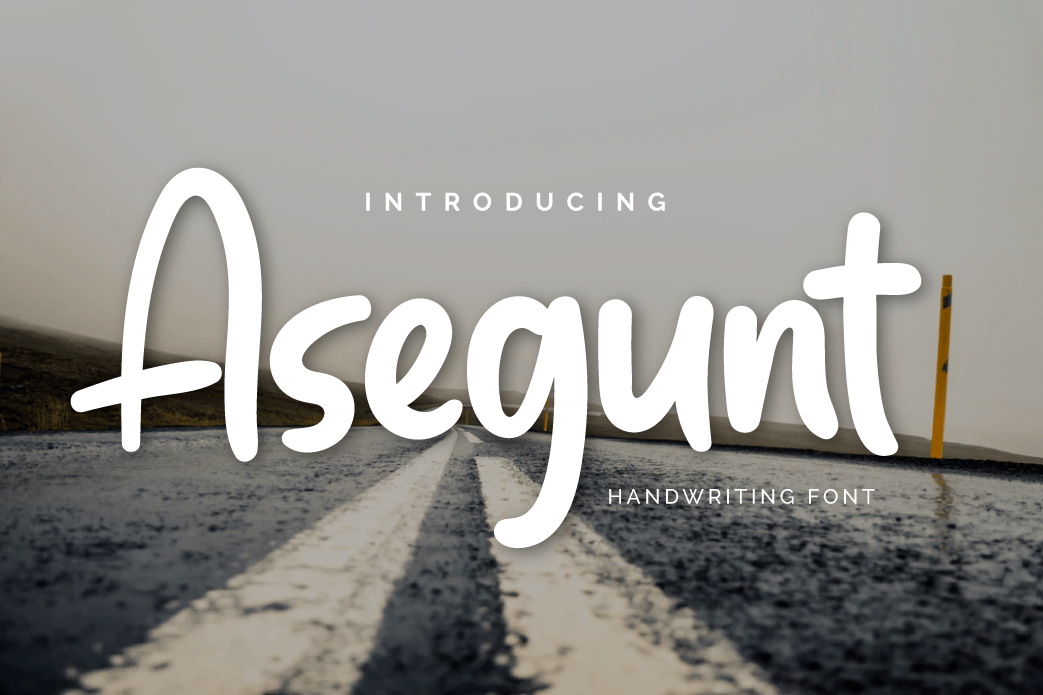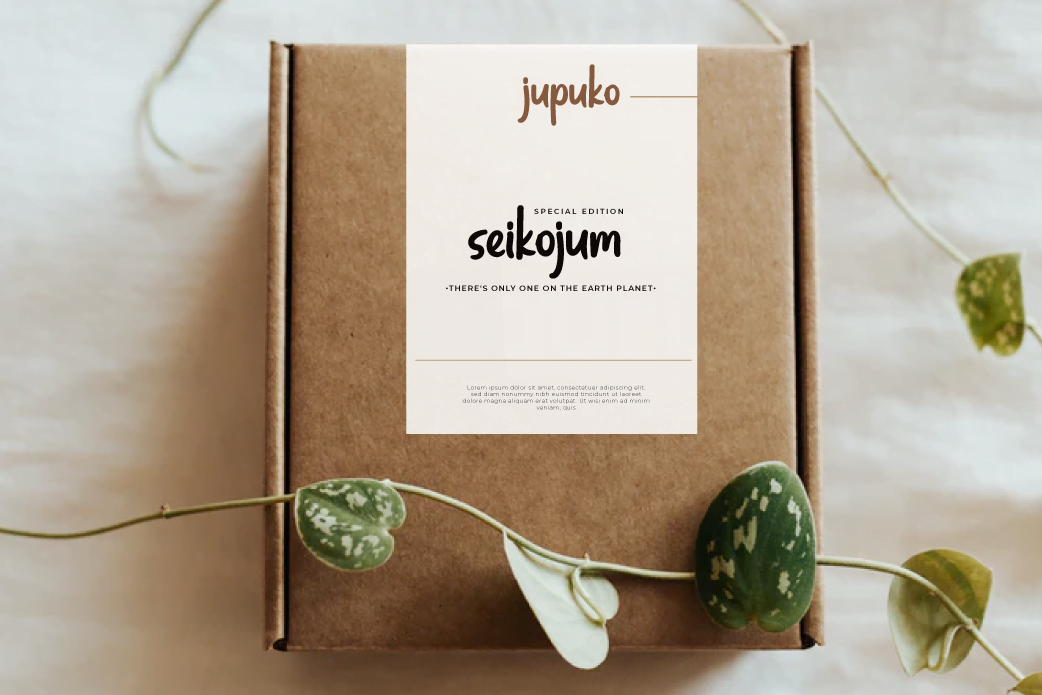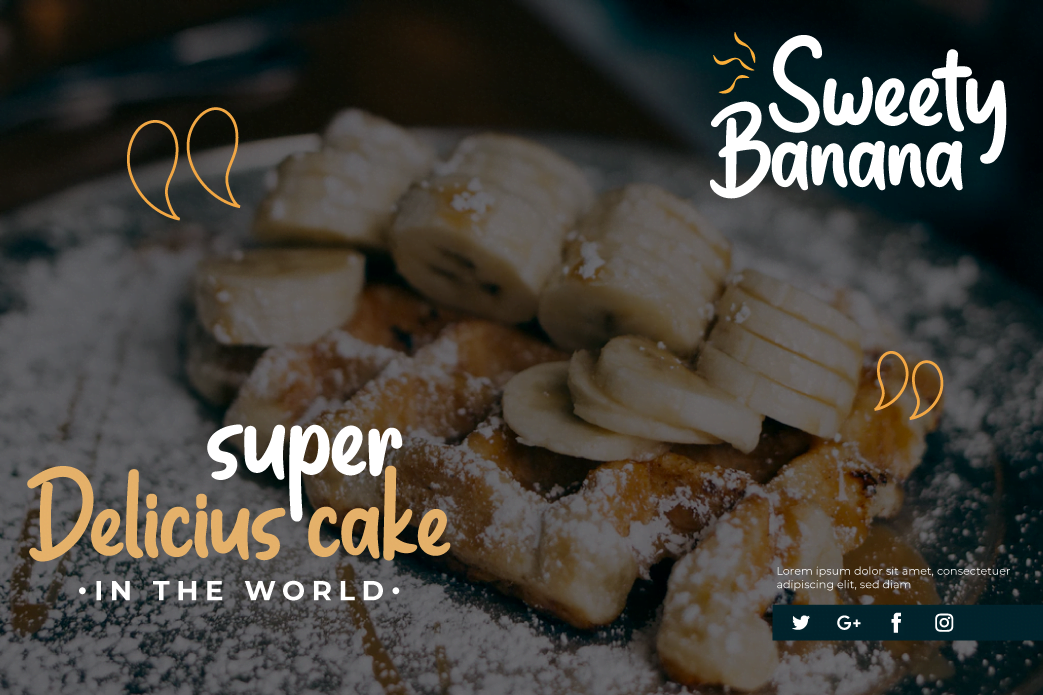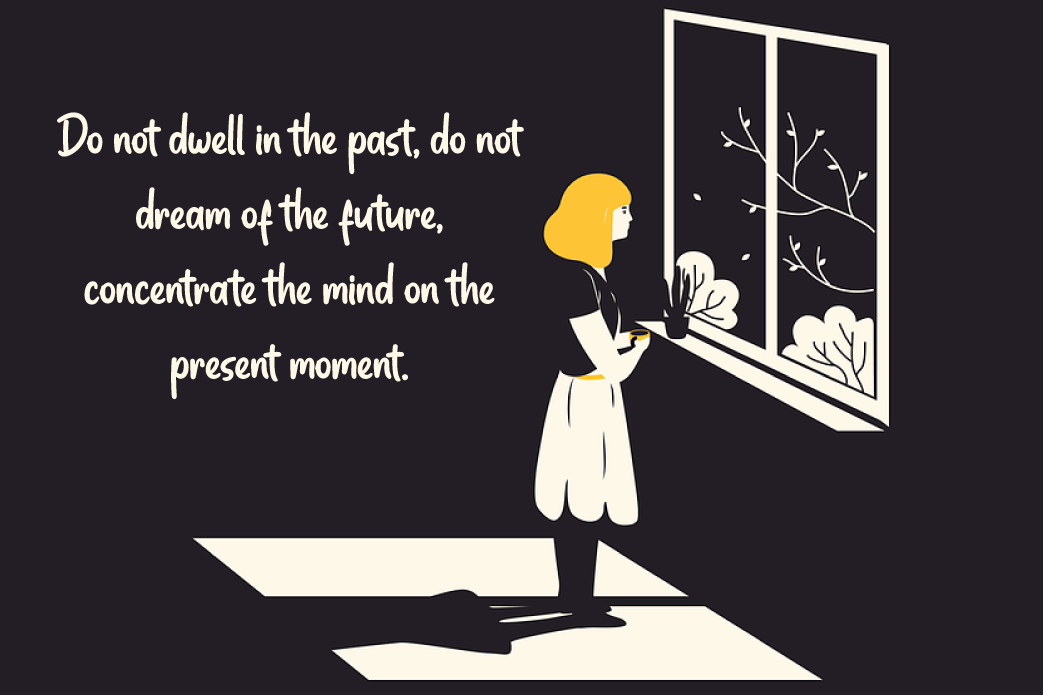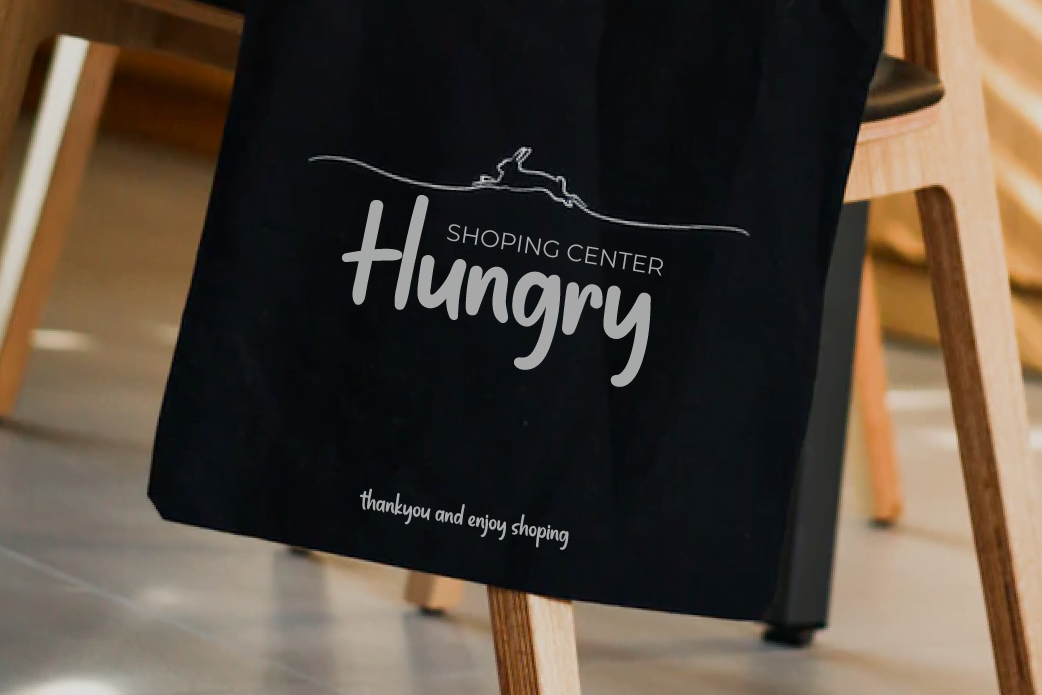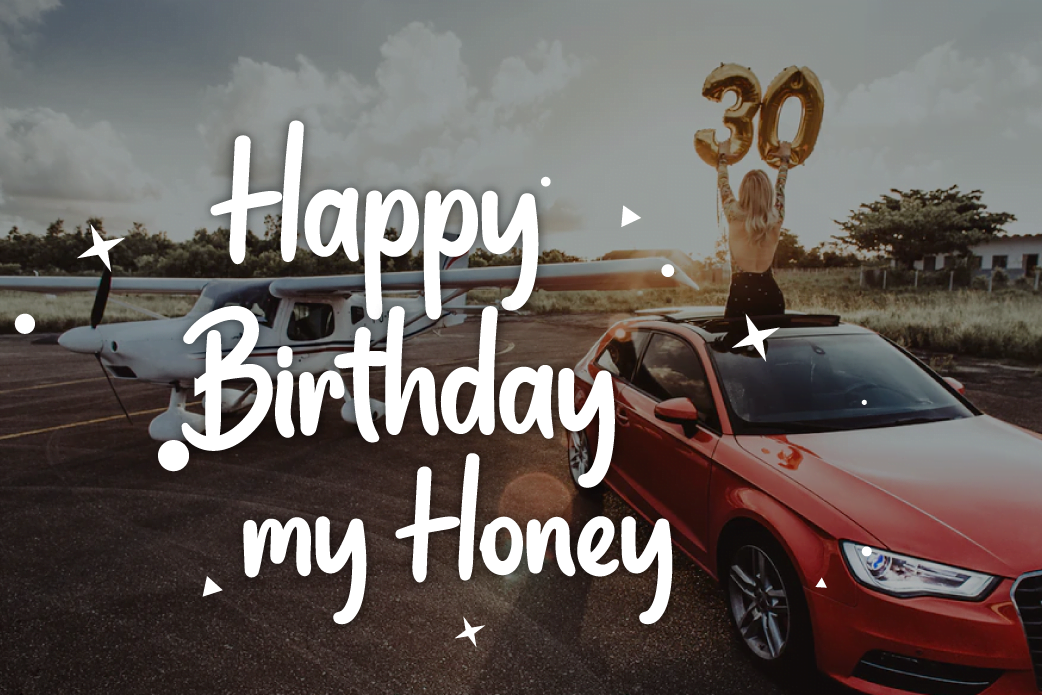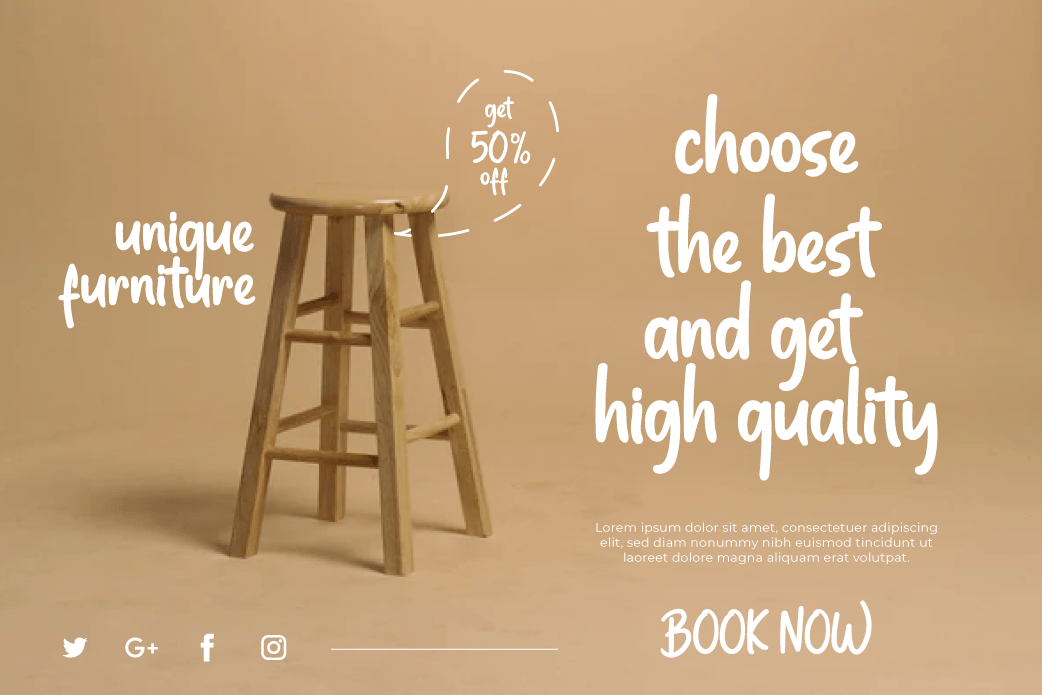
Asegunt
Asegunt is an abstract handwritten font but looks lovely on the eyes. with original hand strokes mixed together to make words and sentences
This font is designed with a natural touch of handwriting which is refined to create a portion and composition that suits your needs. So this font is suitable for craft, children’s writing, adventure posters, food banner titles, wedding invitations, product packaging logos, quotes, social media page covers, furniture banner headlines, book covers, and much more.